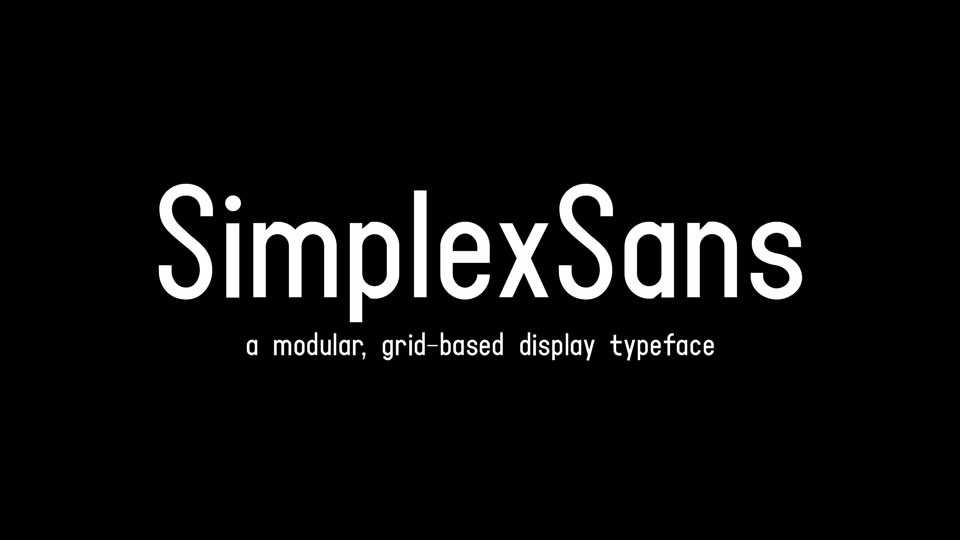
Download SimplexSans font, a modular, grid-based display typeface inspired by the era of manual lettering — a time when type wasn’t designed on screens, but drawn by hand with ruler and compass.